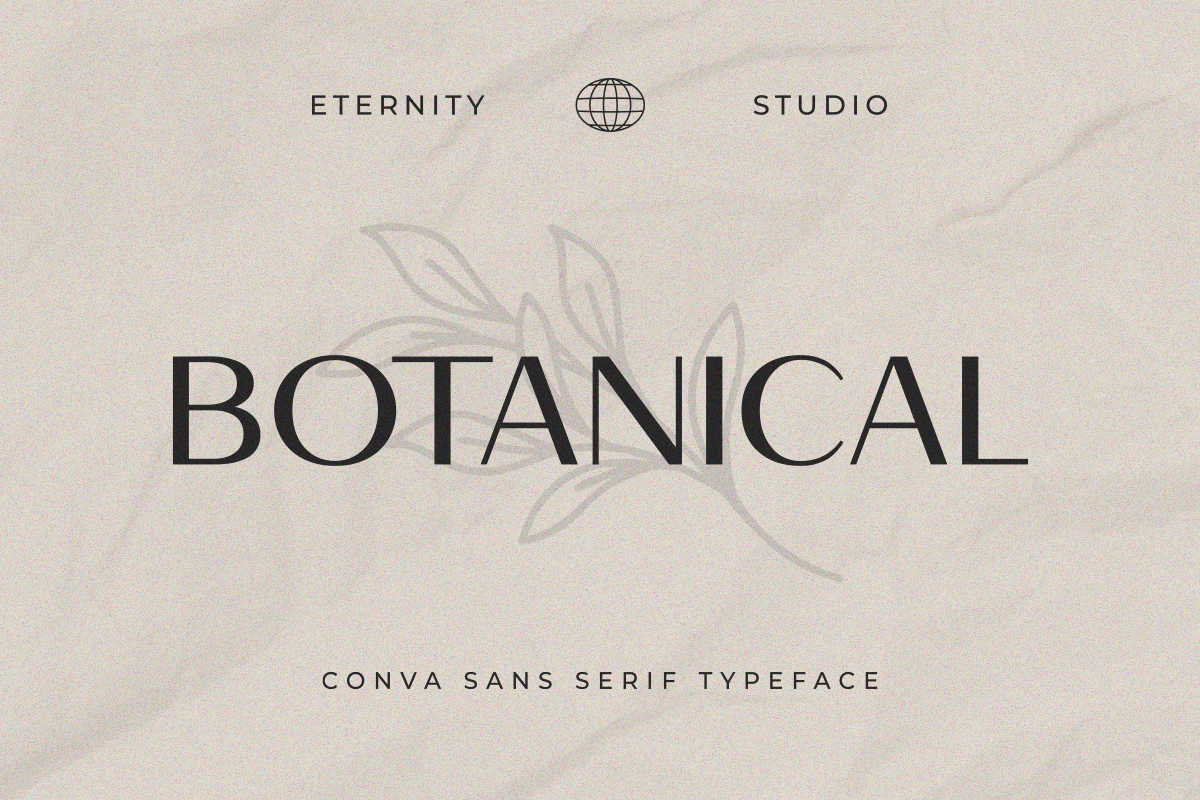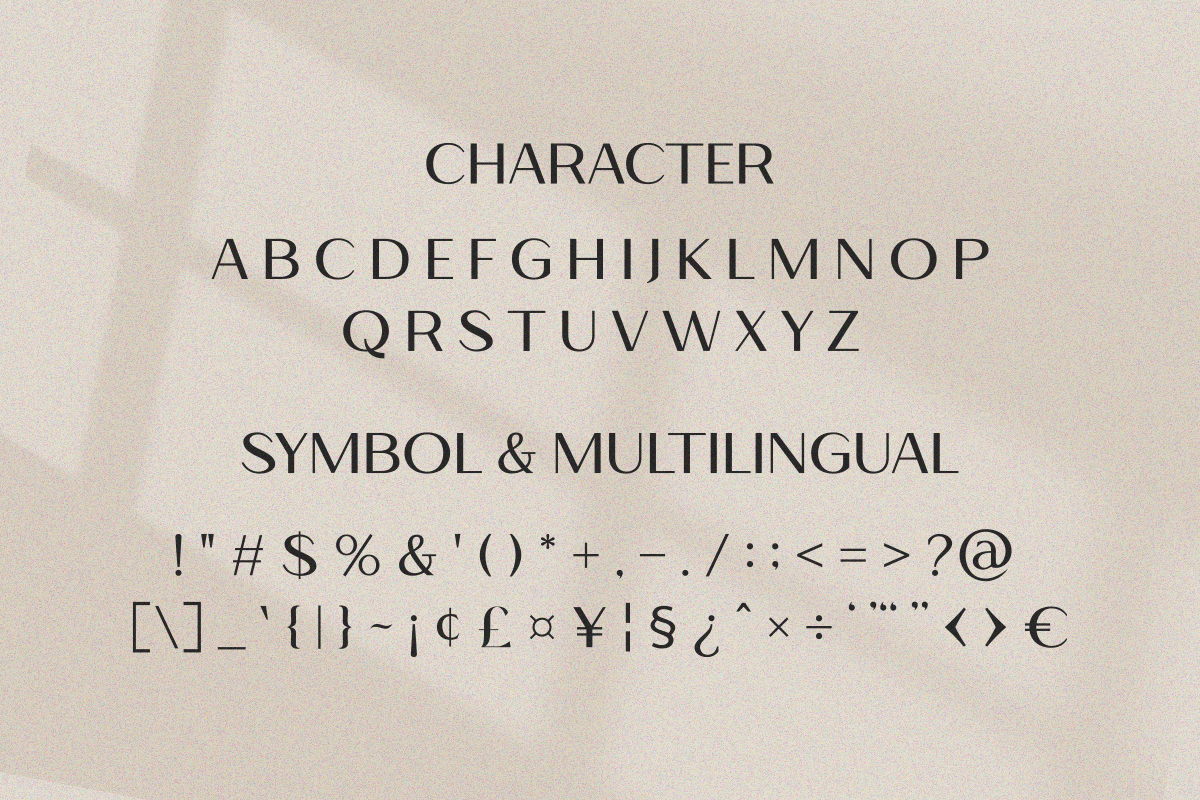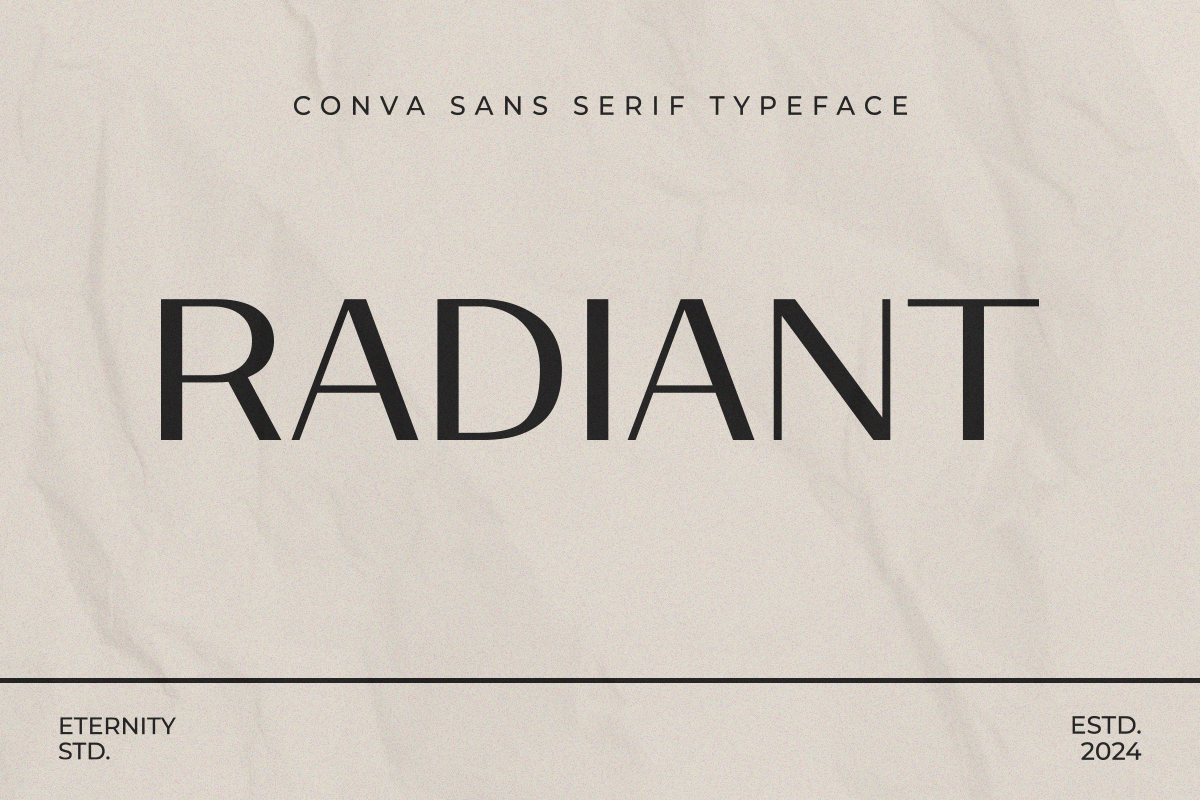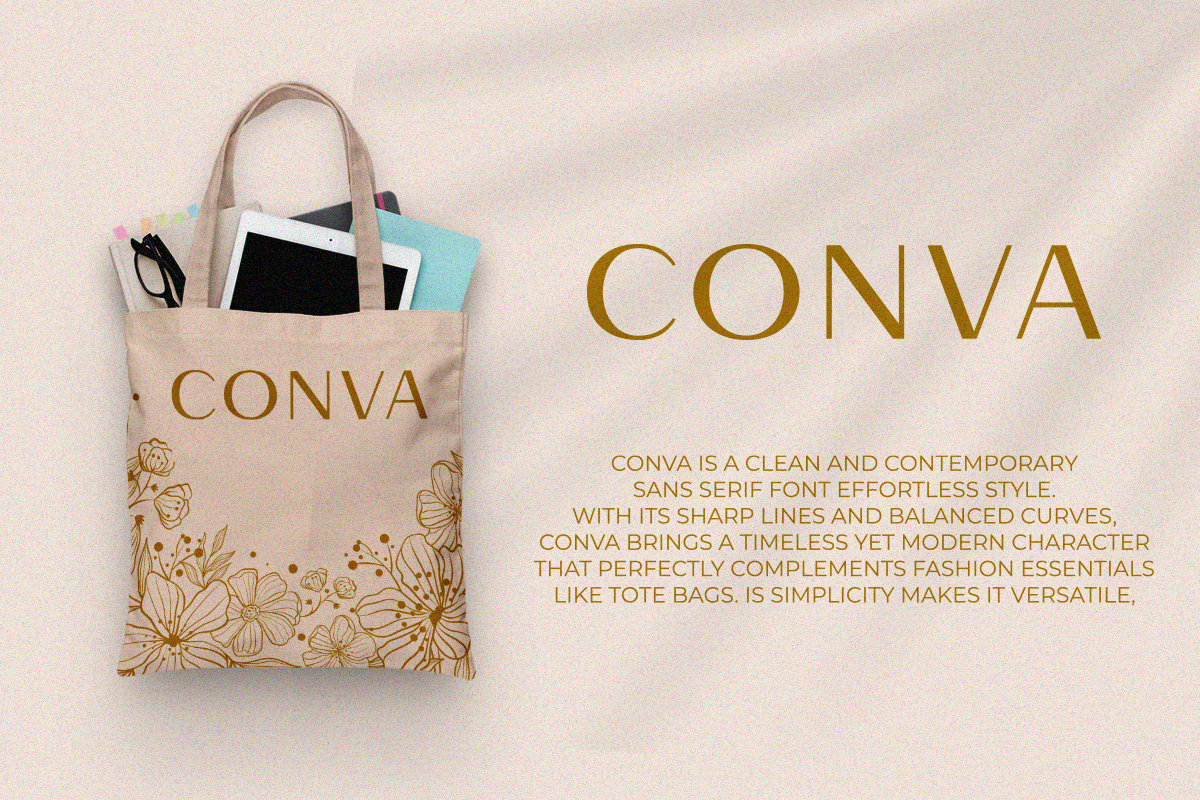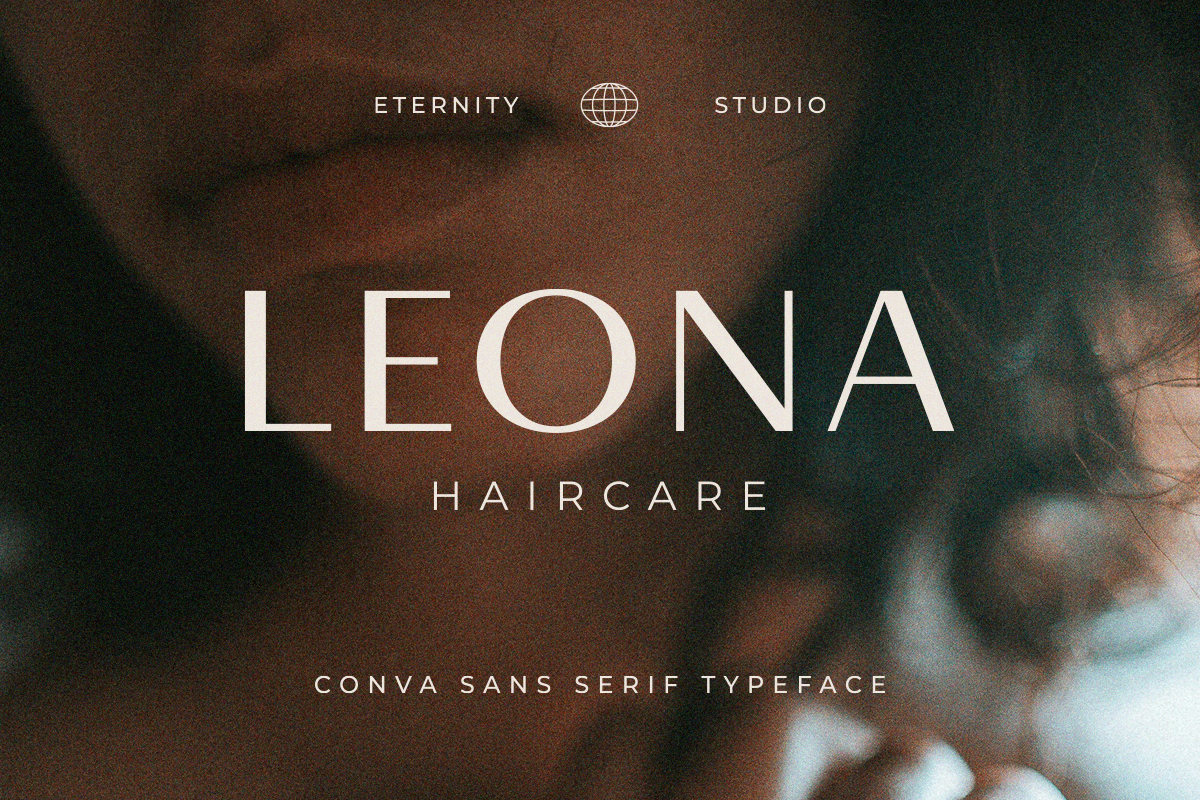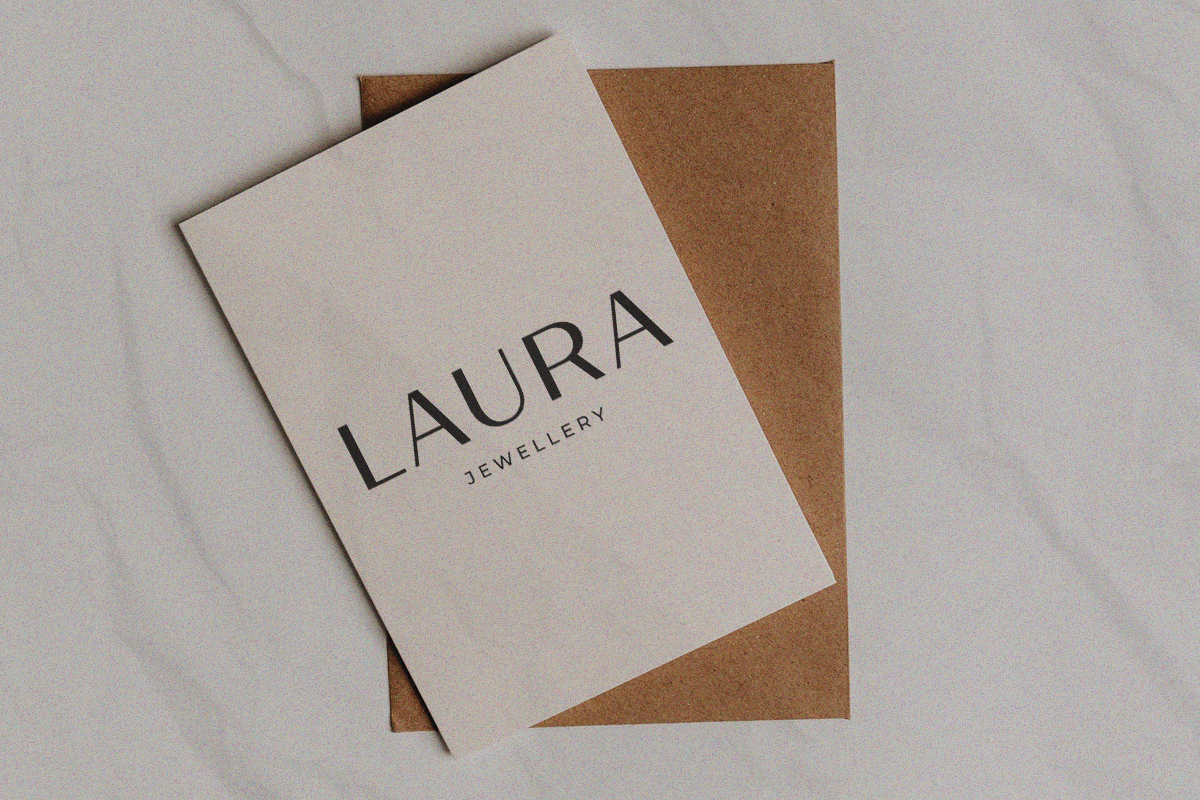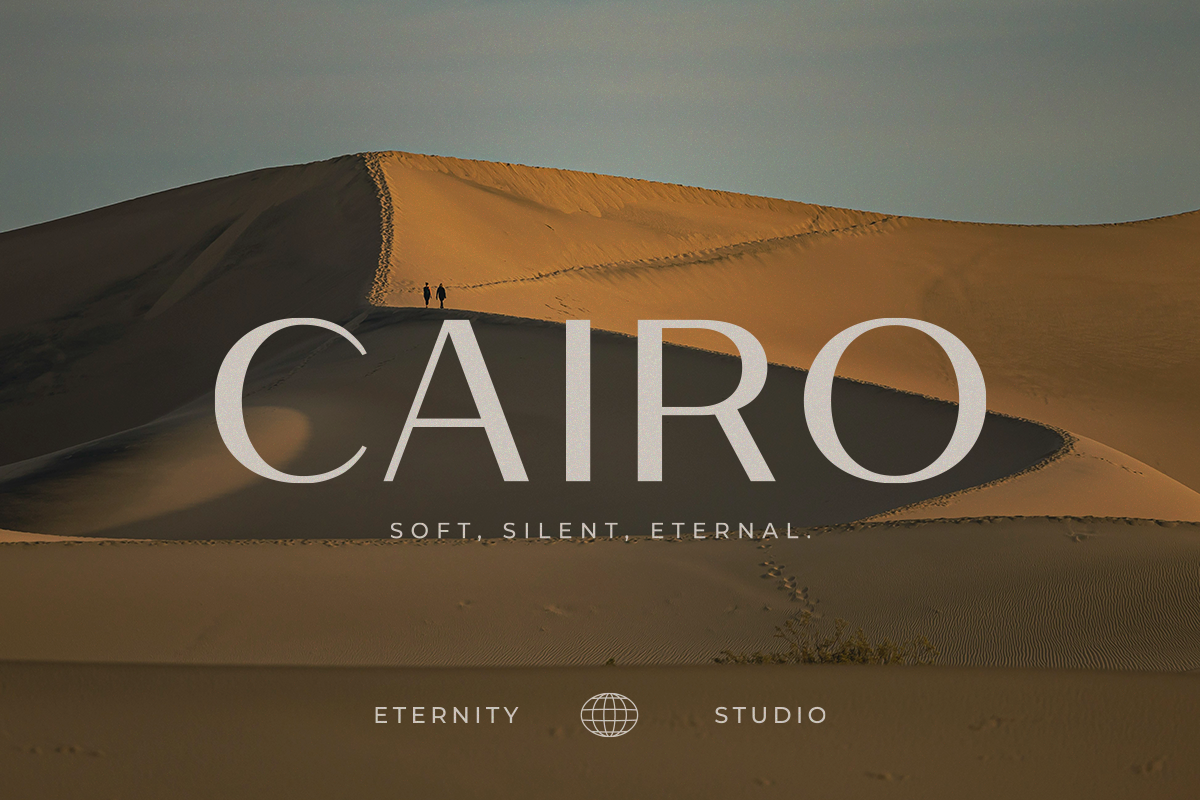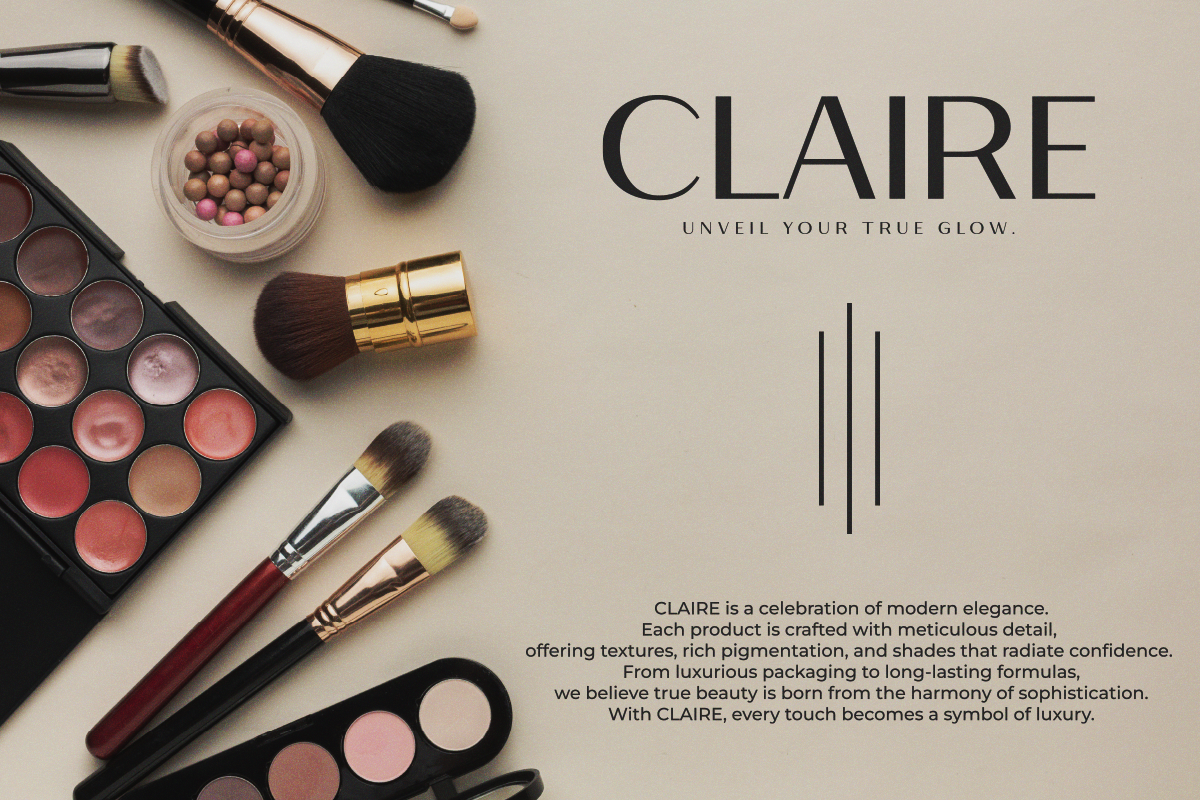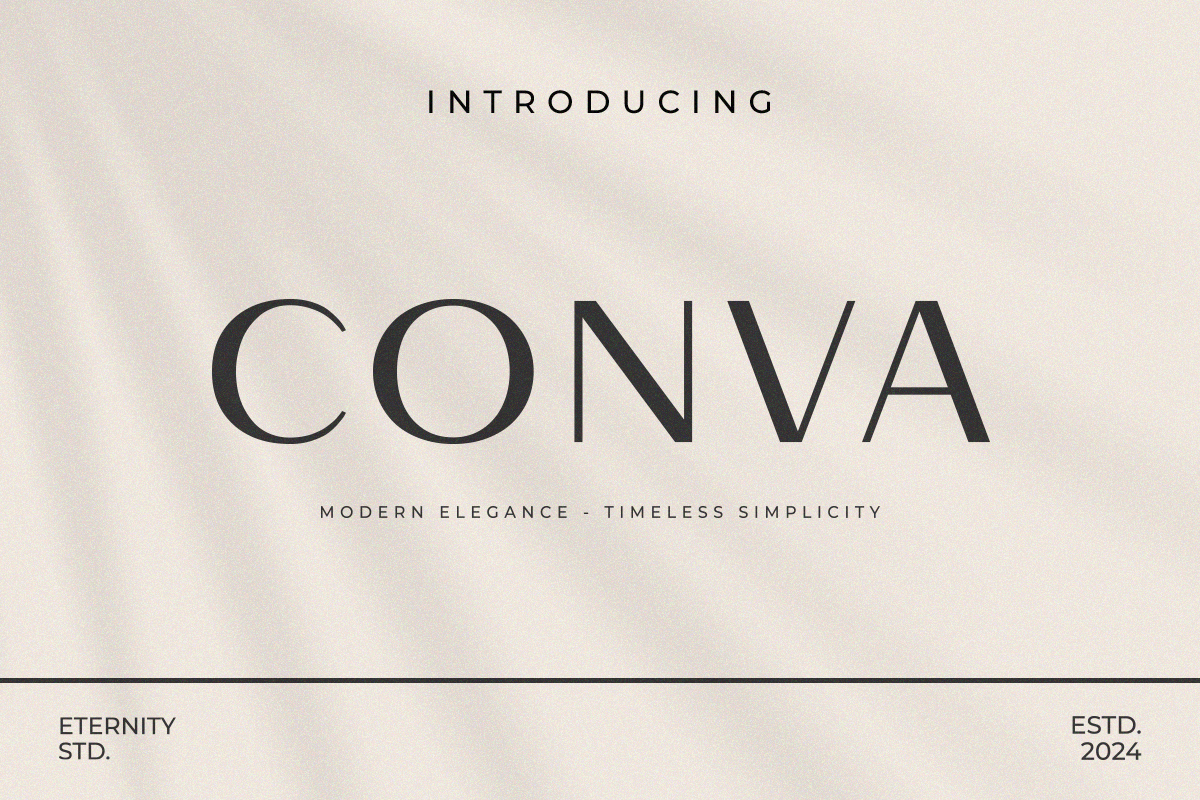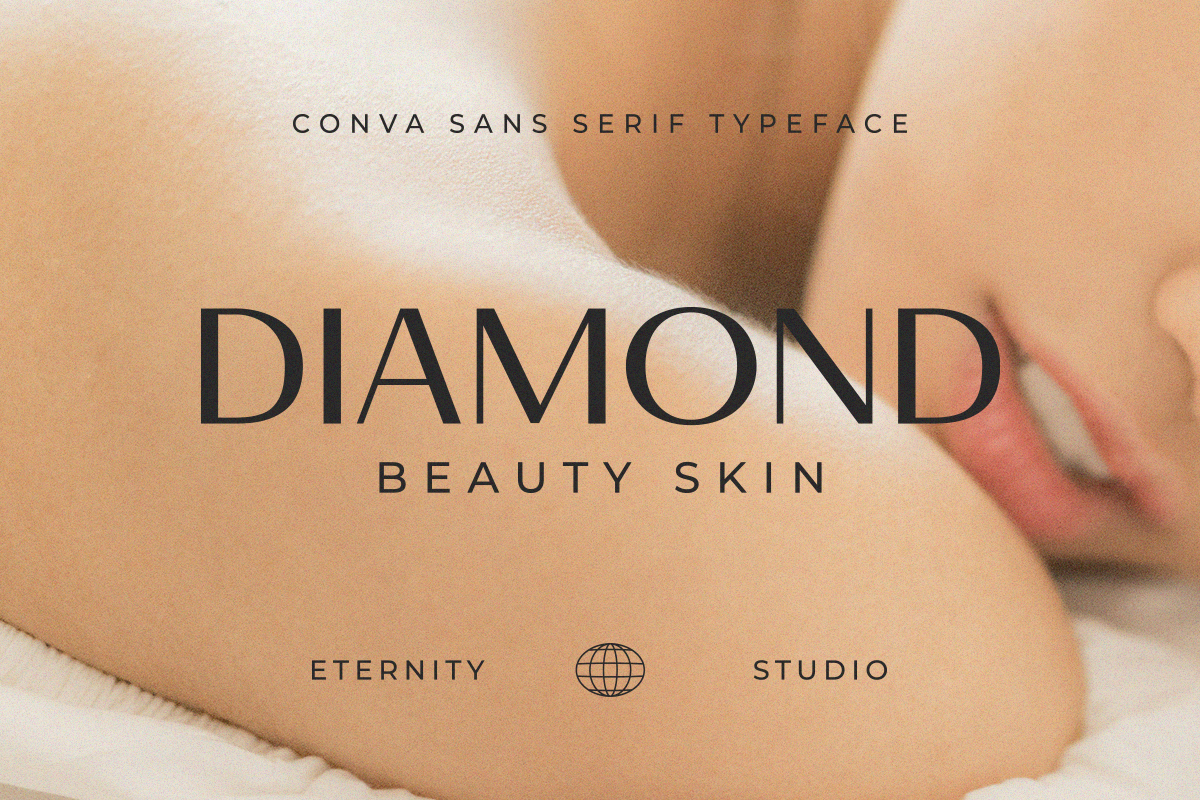
ET Conva - Sans Serif TypeFace
ET Conva is a clean and modern sans serif typeface designed for versatility and readability. With its balanced proportions and minimalistic style, this font works perfectly for both digital and print projects, making it a reliable choice for designers.
Branding & logo design
Editorial layouts & magazines
Website headers & social media graphics
Posters, flyers, and business cards
Packaging & product design
The simplicity of ET Conva allows it to adapt to a wide range of creative needs, from professional corporate branding to trendy minimalist projects.
✨ Features:
Uppercase & lowercase letters
Give your projects a modern, professional, and timeless look with ET Conva.